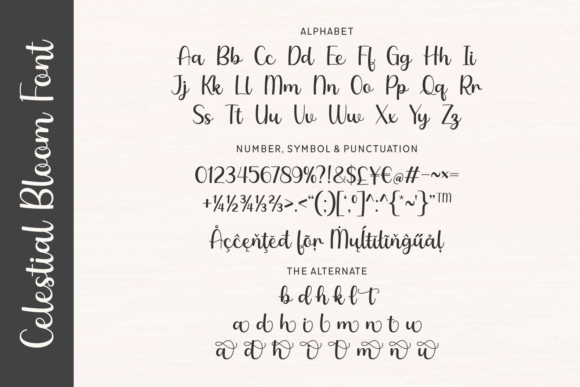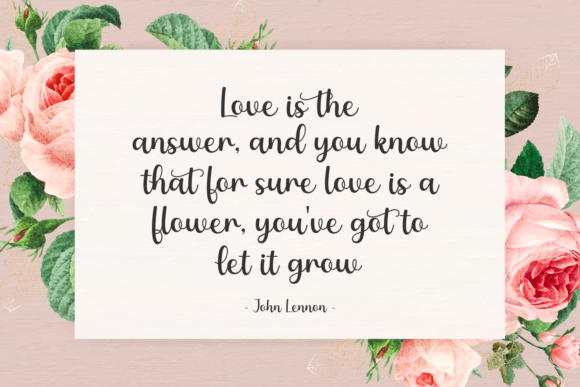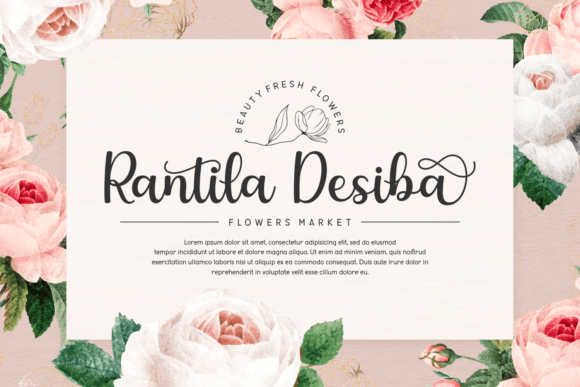
Celestial Bloom Font: Elevate Your Designs with Elegance and Charm
In the world of typography, fonts play a crucial role in conveying the tone and personality of a design. For those seeking a modern script font that exudes elegance and charm, Celestial Bloom is an exceptional choice. This beautiful font is perfect for weddings, invitations, branding, and heartfelt designs, adding a touch of sophistication to any project.
What Makes Celestial Bloom Special?
Celestial Bloom is a modern script font that stands out with its unique swashes and smooth flow. The font’s design is characterized by its:
- Unique Swashes: The font features beautiful swashes that add a touch of elegance to any design. These swashes can be used to create stunning titles, headings, and even body text.
- Smooth Flow: The font’s smooth flow ensures that the text reads effortlessly, making it perfect for long-form content, such as wedding invitations, quotes, and more.
- Elegant and Charming: Celestial Bloom’s elegant and charming design makes it perfect for designs that require a touch of sophistication, such as wedding stationery, branding, and packaging.
Perfect for Weddings and Invitations
Celestial Bloom is an ideal choice for wedding designs, invitations, and other special occasions. The font’s elegant and charming design creates a beautiful, romantic atmosphere, perfect for:
- Wedding Invitations: Use Celestial Bloom to create stunning wedding invitations that set the tone for the special day.
- Wedding Stationery: The font is perfect for creating beautiful wedding stationery, including save-the-date cards, thank-you cards, and more.
- Event Branding: Use Celestial Bloom to create a cohesive brand identity for events, such as weddings, baby showers, and birthday parties.
Ideal for Branding and Packaging
Celestial Bloom is not only perfect for weddings and invitations but also for branding and packaging designs. The font’s elegant and charming design makes it an excellent choice for:
- Logo Design: Use Celestial Bloom to create a beautiful, elegant logo that reflects your brand’s personality.
- Product Packaging: The font is perfect for creating stunning product packaging that stands out on store shelves.
- Marketing Materials: Use Celestial Bloom to create cohesive marketing materials, such as brochures, flyers, and business cards.
Tips for Using Celestial Bloom
To get the most out of Celestial Bloom, here are some tips to keep in mind:
- Pair with Neutral Fonts: Pair Celestial Bloom with neutral fonts to create a beautiful contrast and ensure readability.
- Use Swashes Wisely: Use the font’s swashes to add a touch of elegance to your design, but be mindful not to overuse them.
Celestial Bloom is a stunning modern script font that exudes elegance and charm. Perfect for weddings, invitations, branding, and heartfelt designs, this font adds a touch of sophistication to any project. With its unique swashes and smooth flow, Celestial Bloom is an excellent choice for designers and crafters seeking to elevate their designs.